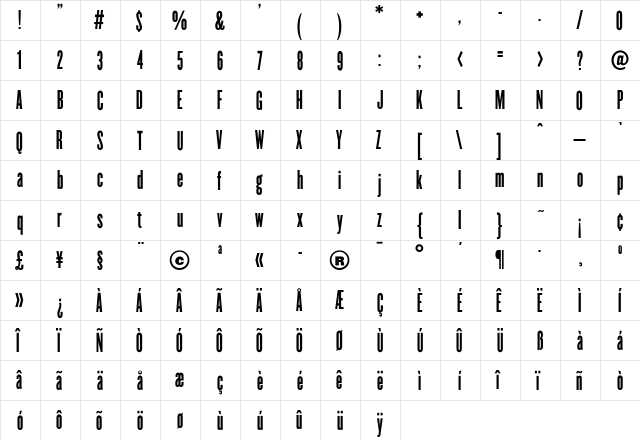
Champion Medium
Design Context for Champion Typeface
Champion is a composed and adaptable typeface that performs quietly and consistently across a wide range of design contexts.
Pro Tip: Pair Champion with a font of contrasting weight or personality to build a more expressive typographic hierarchy.